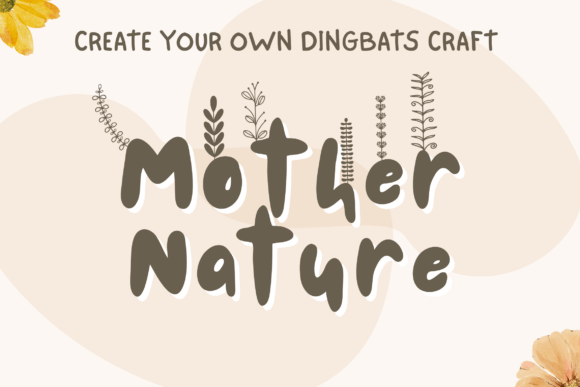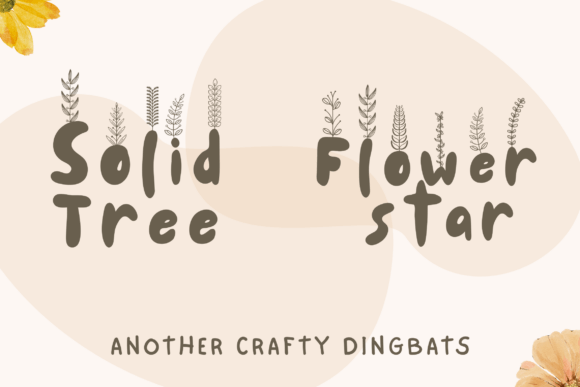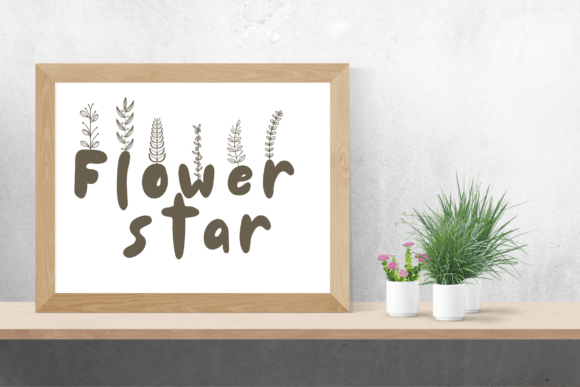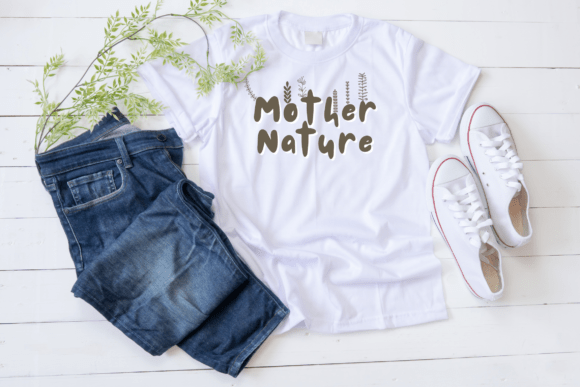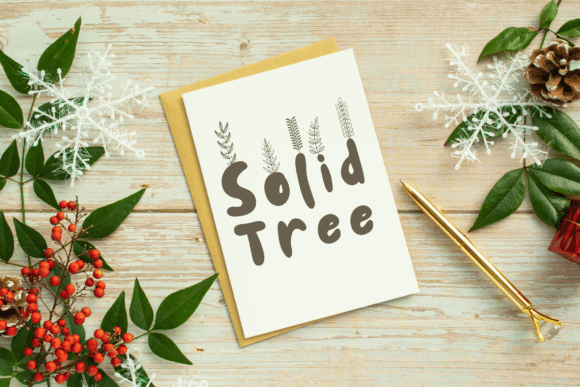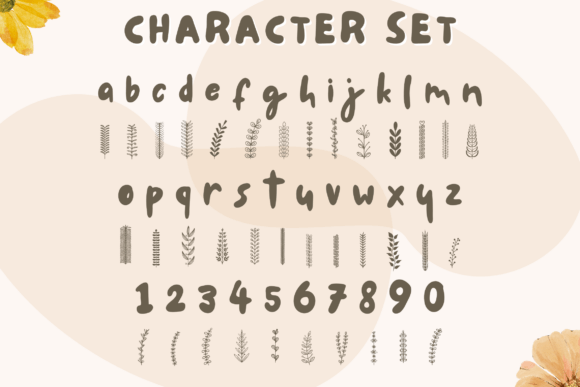
Introduction to Petaline Dingbat Font
Petaline Dingbat is a charming floral dingbat font packed with hand-drawn botanical illustrations perfect for every design season.
As a floral dingbat font, it includes a variety of leafy sprigs, whimsical blossoms, elegant wreaths, and decorative nature-inspired symbolsโideal for logos, invitations, packaging, Cricut crafts, and more From wedding stationery to boho product labels, Petaline Dingbat adds a natural, handmade touch that elevates your work.
Key Features of Petaline Dingbat Font
Why Choose Petaline Dingbat Font?
Petaline Dingbat Font offers exceptional quality and versatility, making it a valuable addition to your design toolkit. Whether you’re creating for personal projects or commercial use, Petaline Dingbat Font delivers professional results.